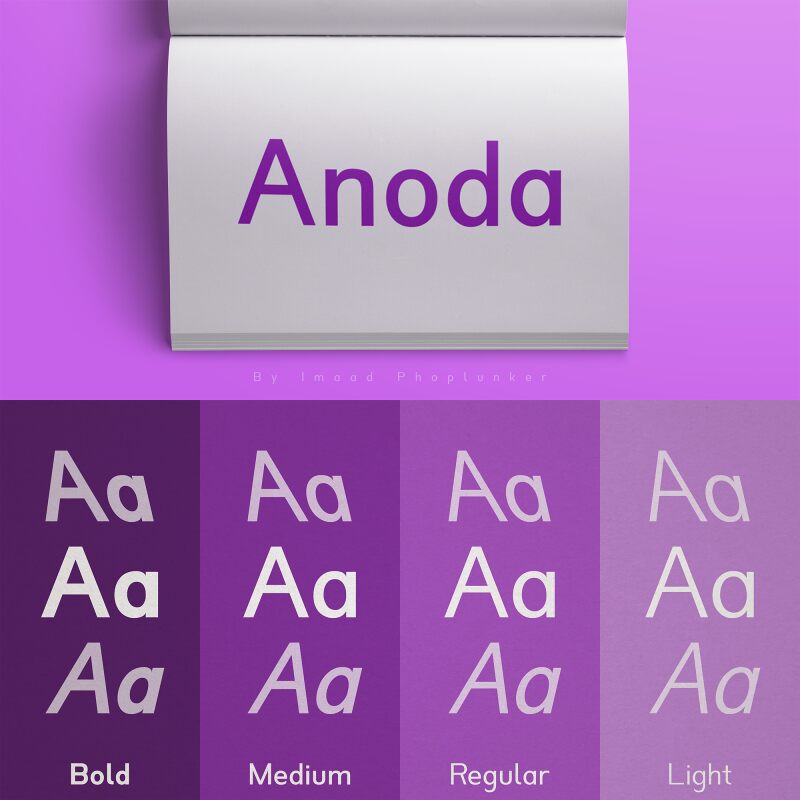
Anoda font family designed by Imaad Phoplunker is a free sans-serif font family that contains 12 versatile font styles. The font has a clean modern appearance with an innovative geometric letter design that supports your titles or body text. A product of minimalism and simplicity, Anoda displays a contemporary touch with its versatile forms that make it a perfect choice for just about every project.
From logotypes to advertising materials, to editorial layouts to websites, Anoda will certainly provide a modern flare and add to the visual appeal of your designs. With keen attention to detail, this geometric font simply allows you to create!
Anoda is a humanist typeface characterized by its single-storey glyph designs for the letters "a" and "g," lending a cleaner, simpler aesthetic. It is available in four different weights, each featuring italic and backslant variants. Named after a genus of plants, Anoda draws inspiration from the simple yet beautiful flowers of its namesake, making it a versatile font suitable for headings, body text, and more.
With a character set exceeding 370 glyphs, Anoda fully supports over 90 languages, ensuring broad usability for diverse audiences.